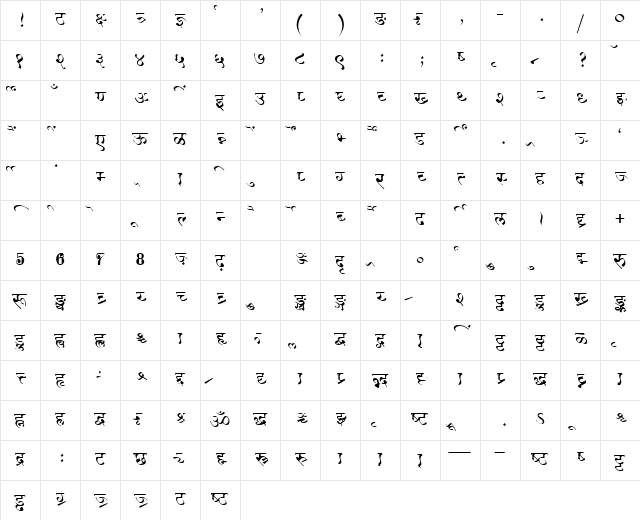
AkrutiDevKalidas Normal Free Font
AkrutiDevKalidas Normal
Complete AkrutiDevKalidas Normal glyph index. Displaying only characters natively supported by AkrutiDevKalidas Normal font.
Design Context for AkrutiDevKalidas
AkrutiDevKalidas is a composed and adaptable typeface that performs quietly and consistently across a wide range of design contexts.